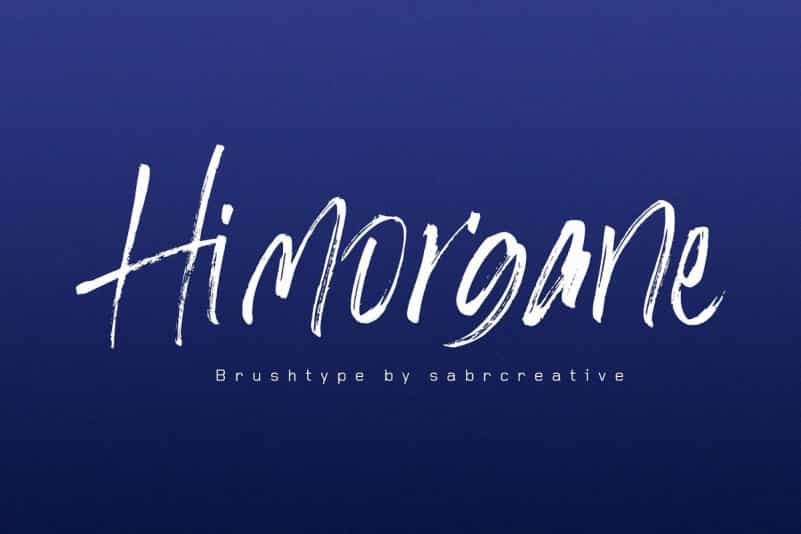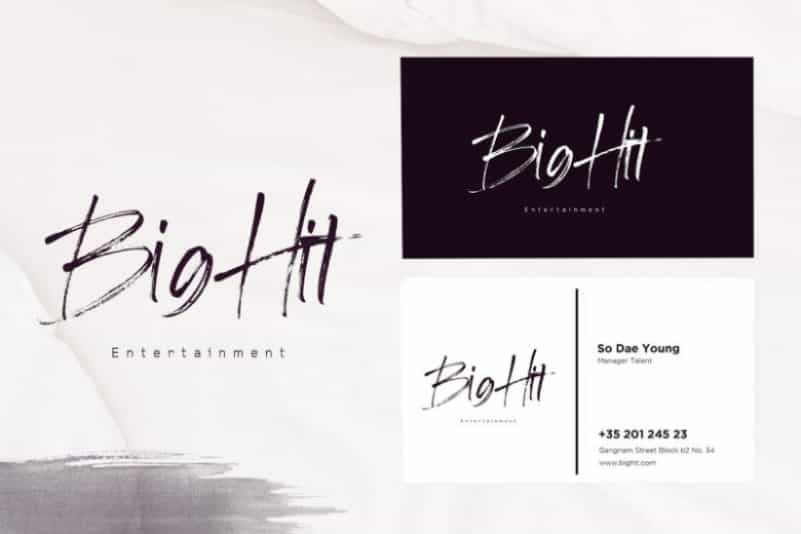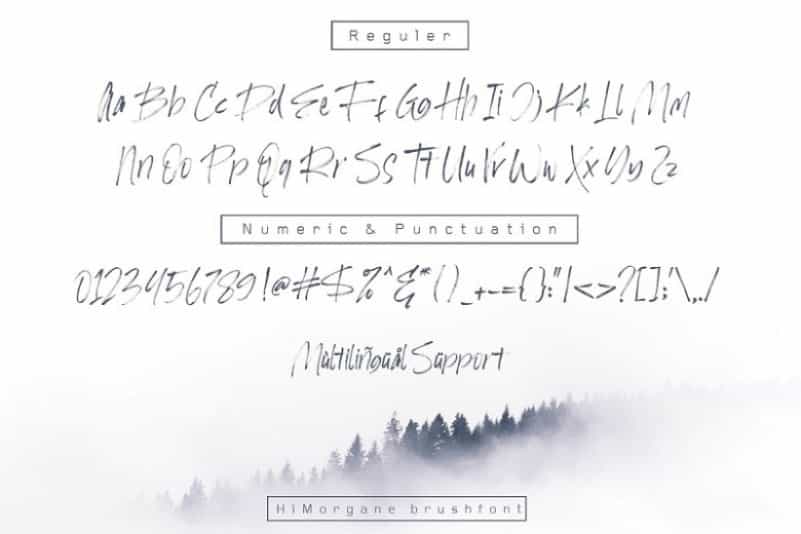
Hi Morgane is a hand brush font with natural and strong characters that are made using brushes and paint which gives it the perfect texture. Hi Morgane Fonts can be used for different types of design like branding materials, t-shirts, social media templates, business cards, logos and others.